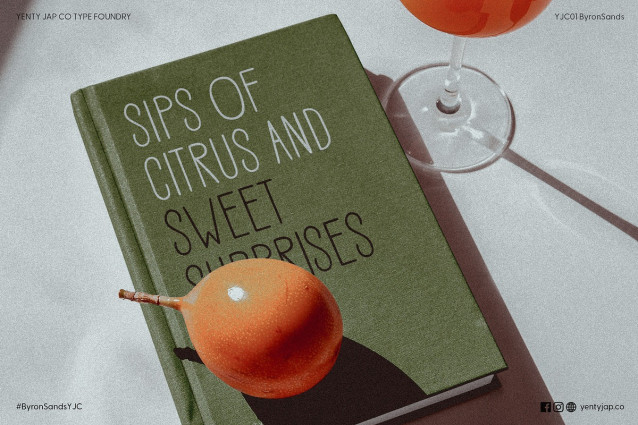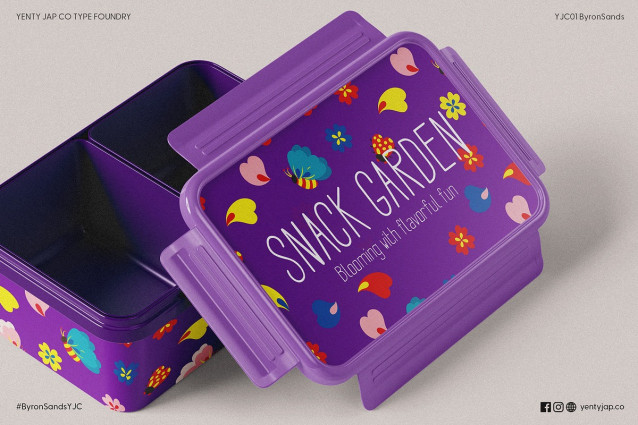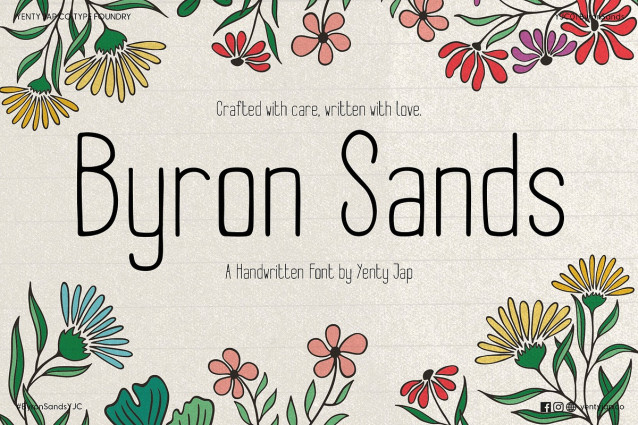
Byron Sands Font
Byron Sands Font a minimalist and modern sans-serif font with a playful touch. This font is perfect for projects that require clean lines and a contemporary aesthetic while maintaining a friendly and approachable feel. Designed with versatility in mind, Byron Sands is your go-to choice for everything from branding to personal projects.